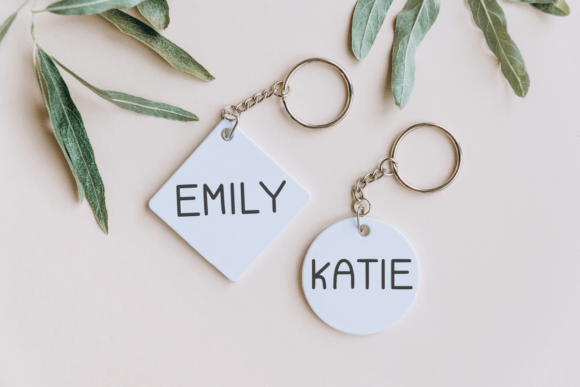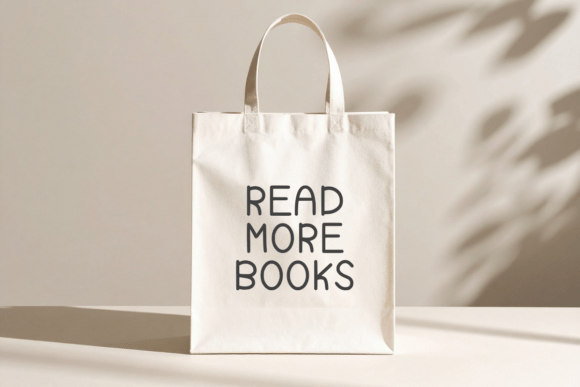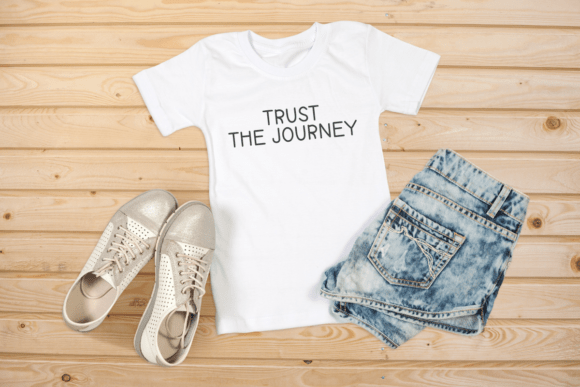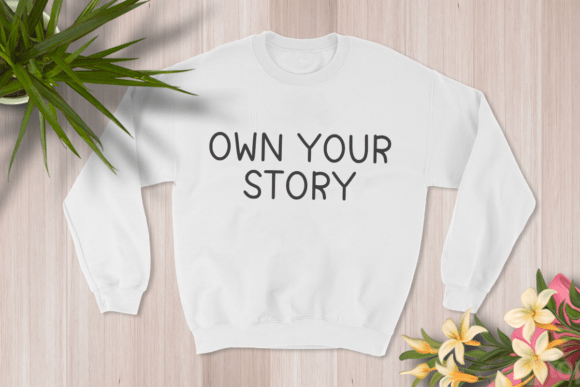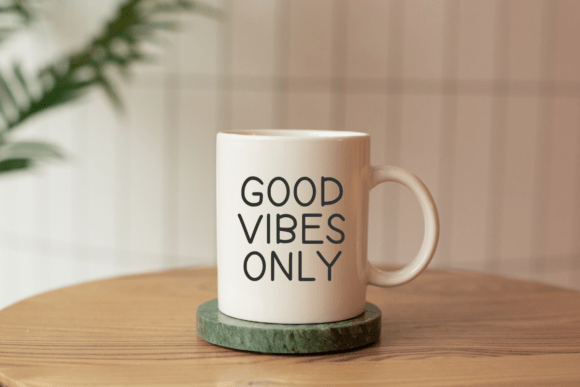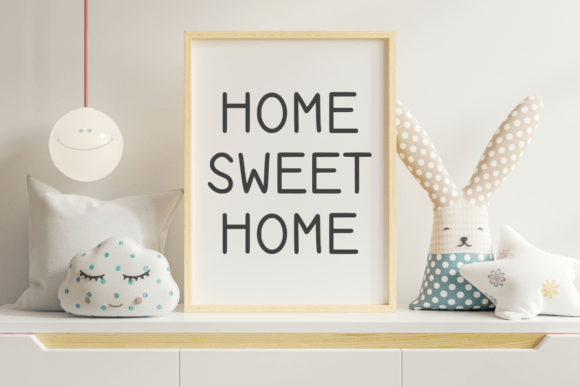
Introduction to Giving Season Font
Giving Season is a cute sans serif handwriting font designed with a soft, friendly, and natural look.
This font brings a warm handcrafted feeling that works beautifully for craft projects, planners, stickers, kids’ worksheets, classroom printables, and DIY designs Its simple strokes and smooth curves make it easy to cut using Cricut and Silhouette, and perfect for crafting moms who love adorable handwritten styles.